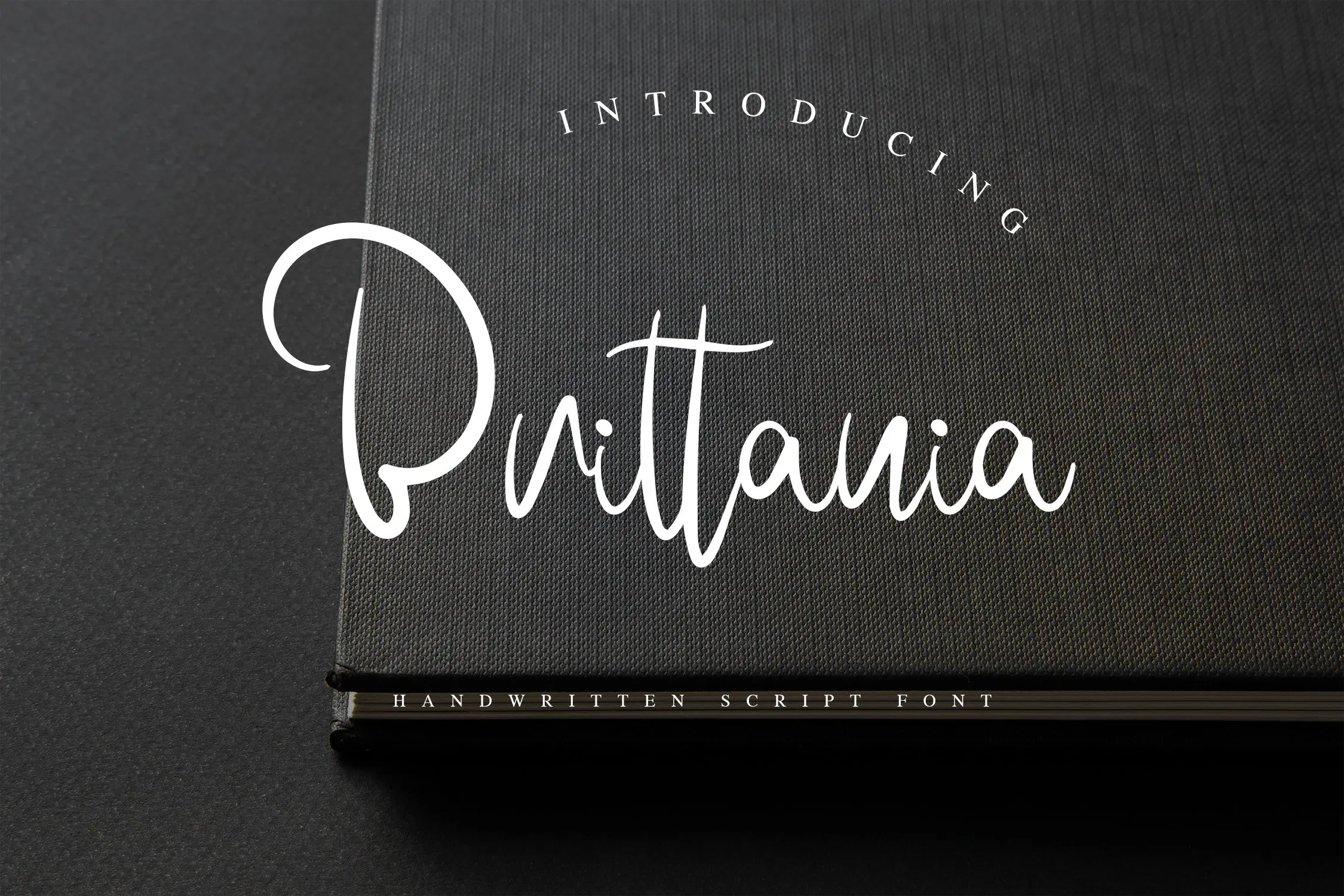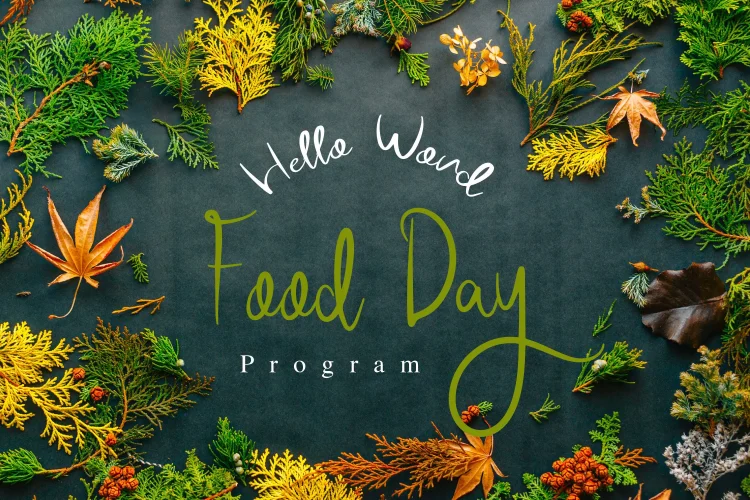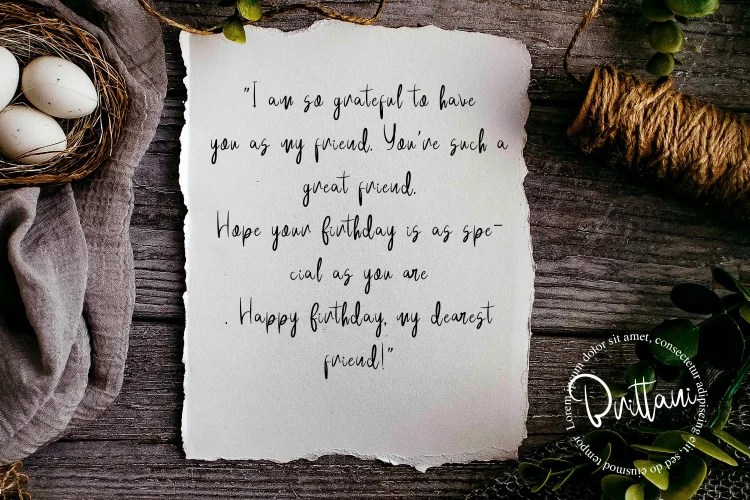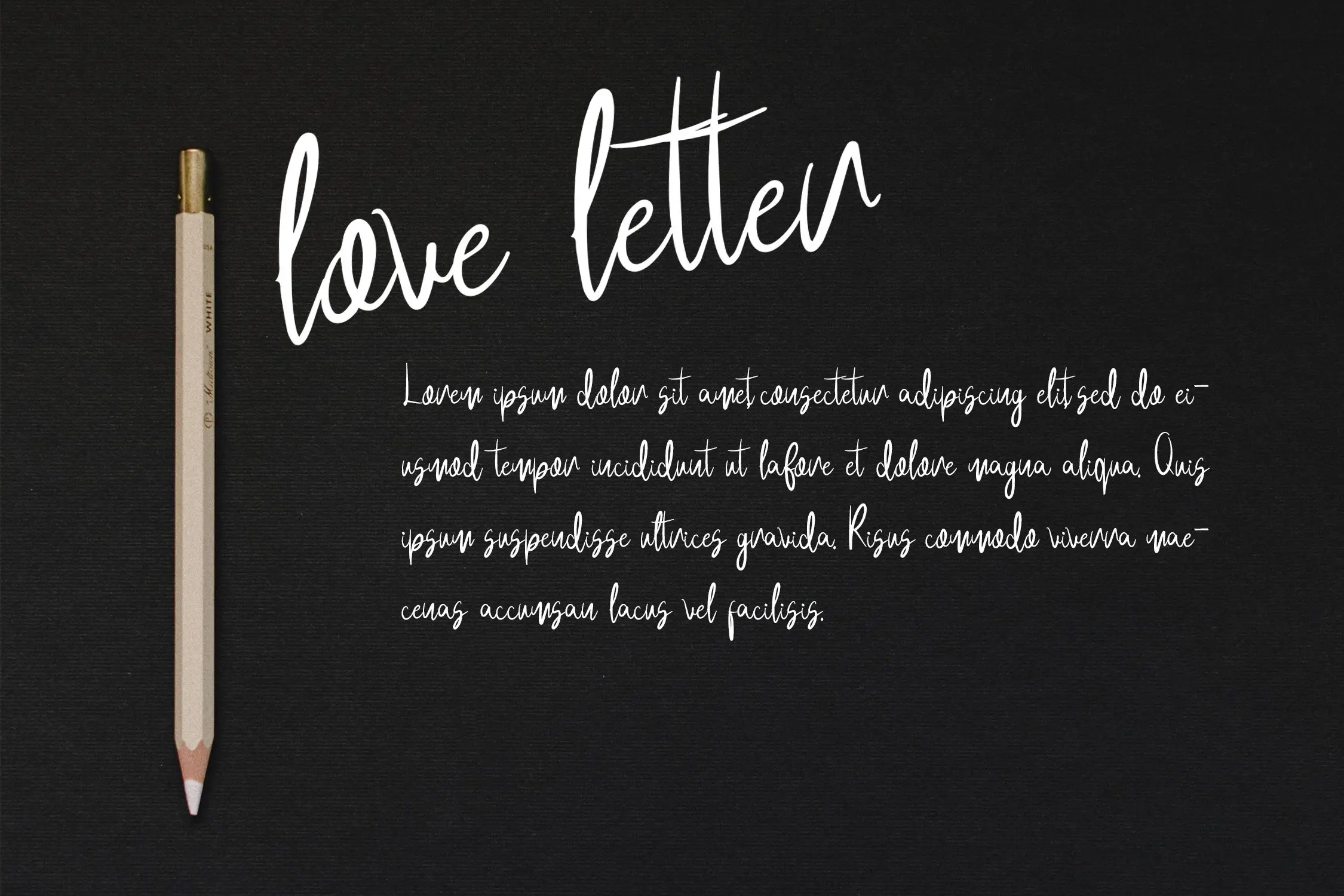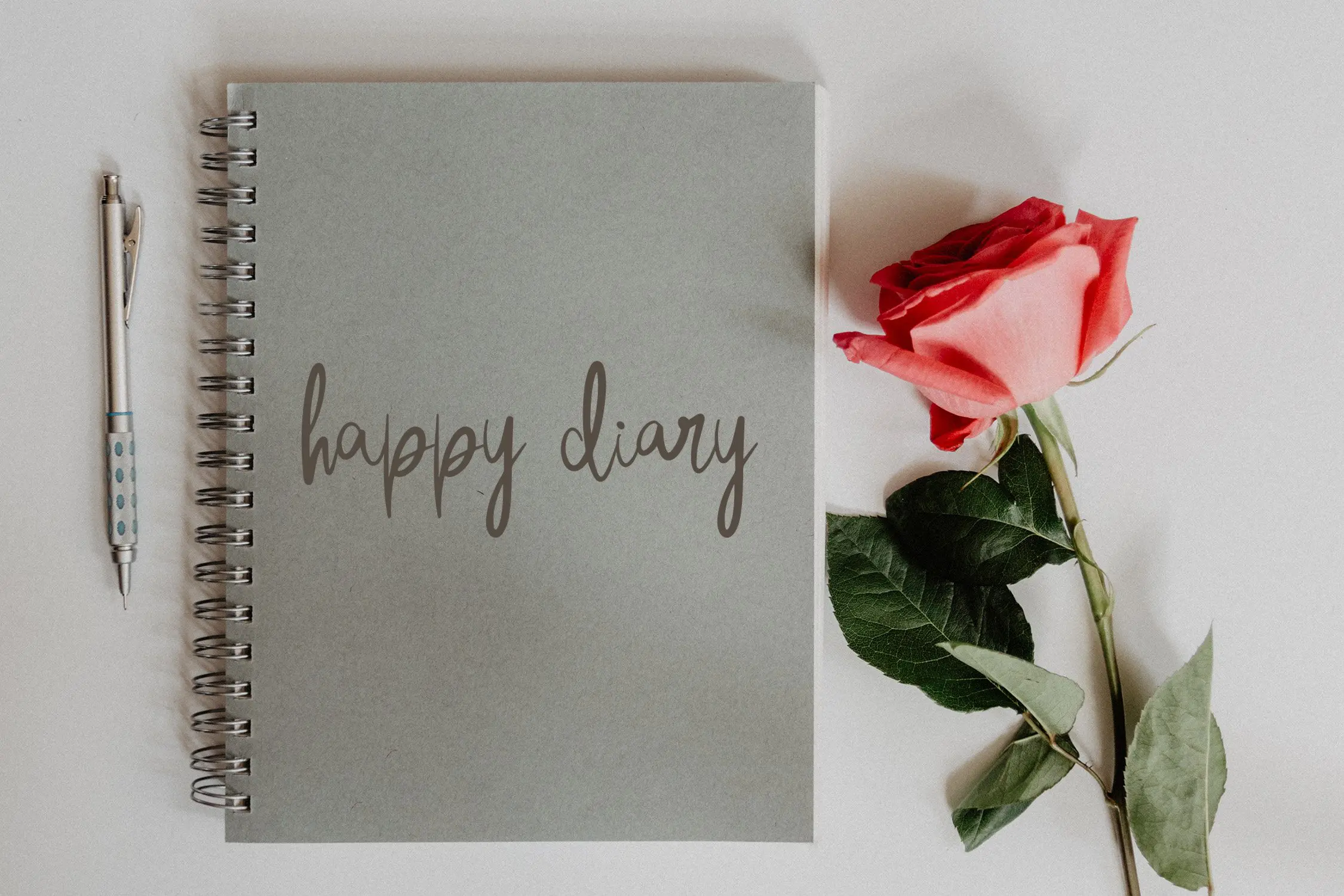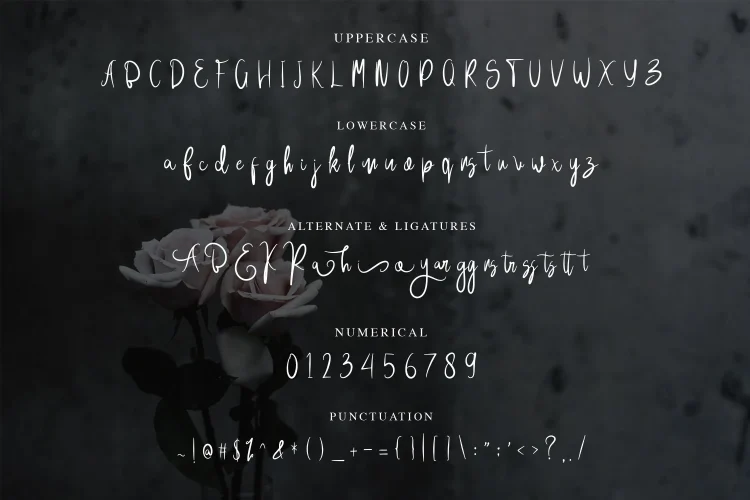
Brittania is a beautiful script handwritten font that is very suitable for the publication needs of fashion, magazine, t-shirt design, flyers, and can also be used as a signature font. This font has a beautiful script character but has a firm side in it. Made with hand scratches directly and then processed into font processing software.
Brittania font with uppercase characters A-Z, lowercase characters a-z, punctuation, stylistic alternate, and ligature characters that enhance this font shape.
- Ligature
- Stylistic Alternate